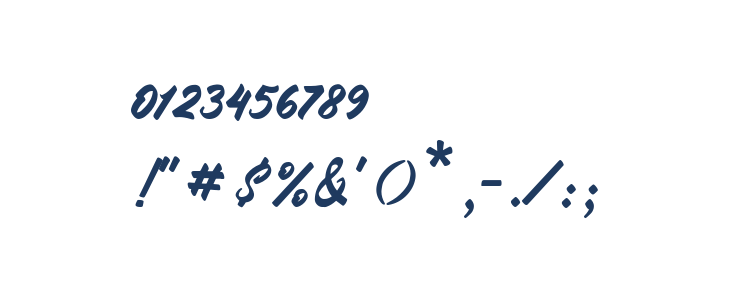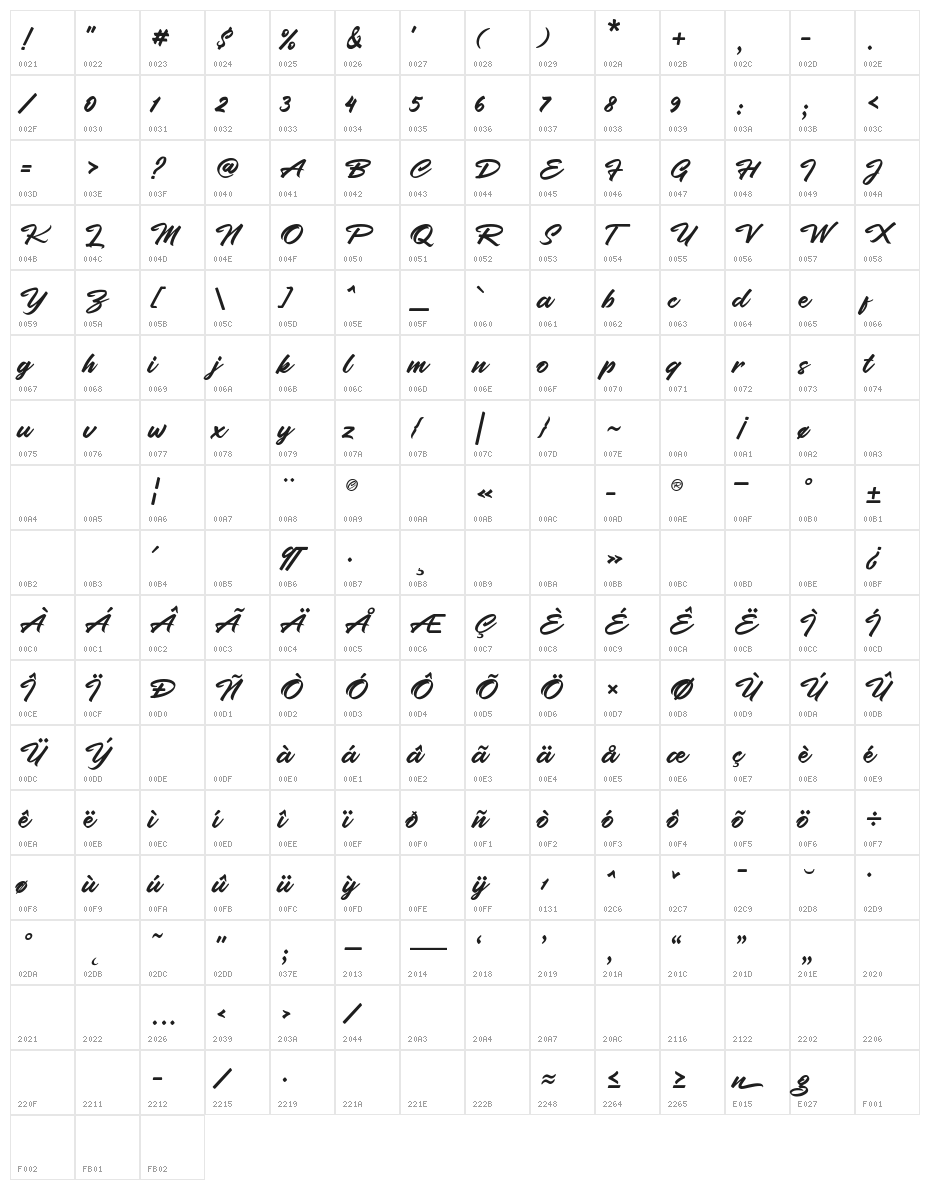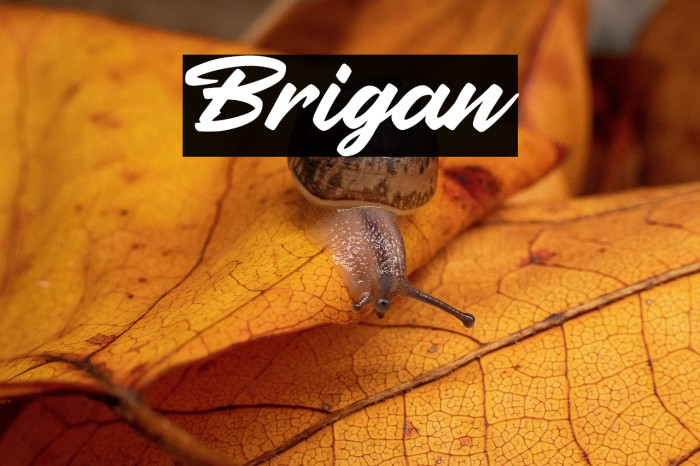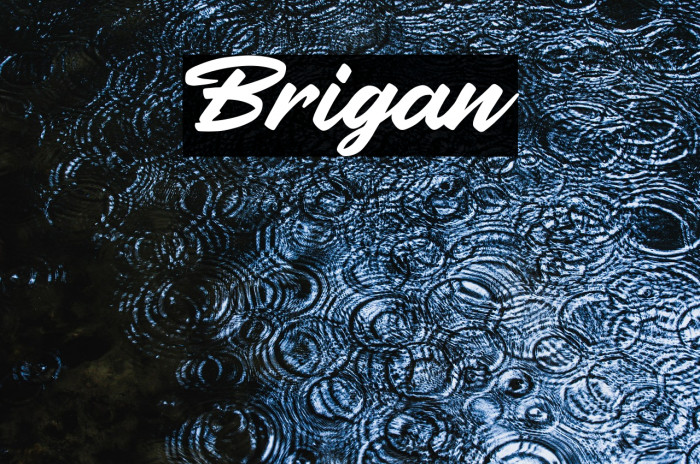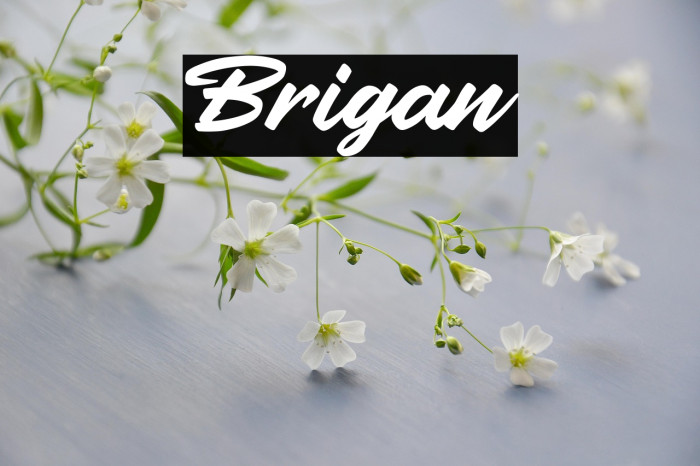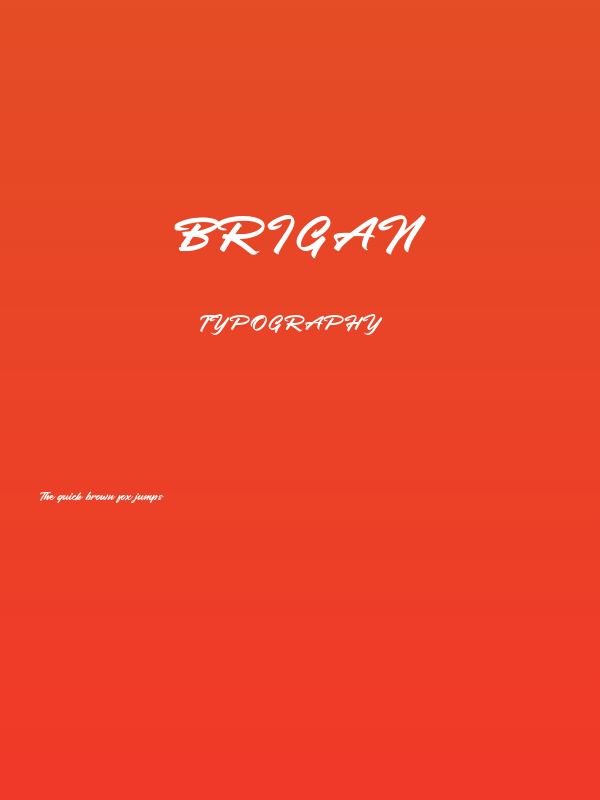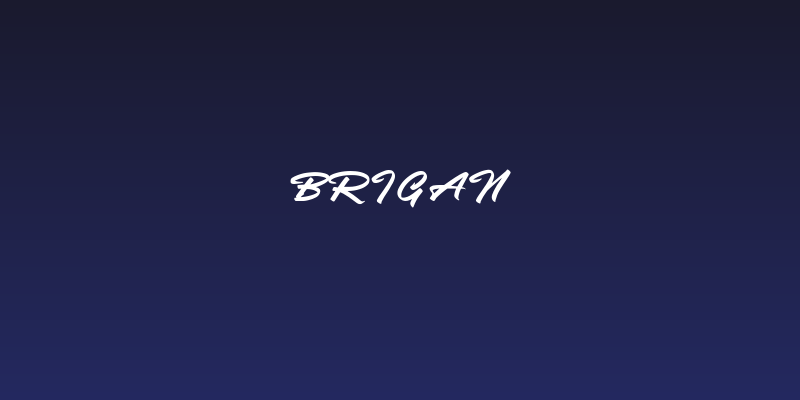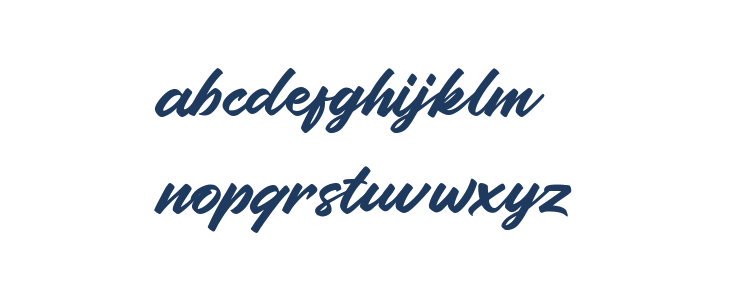
Brigan Font
Brigan Description
This font features a bold and dynamic script style with a strong presence. The letters are connected in a fluid manner, giving it a handwritten appearance. The uppercase characters are slightly more ornate, with elegant curves and flourishes, while the lowercase letters maintain a consistent flow. The numbers are bold and clear, matching the overall style of the alphabet. Special characters are designed to complement the script, maintaining the same bold and expressive quality. This font is ideal for creating impactful and stylish designs.
| Proposed Projects | Ideal for branding, invitations, posters, and any project requiring a personal touch. |